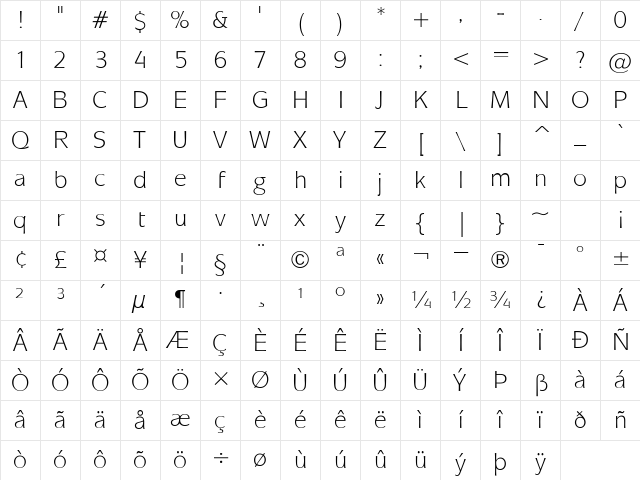
SkiptonLightSSK Regular
Design Context for SkiptonLightSSK
SkiptonLightSSK is a composed and adaptable typeface that performs quietly and consistently across a wide range of design contexts. Its slender proportions lend an understated elegance to any composition.